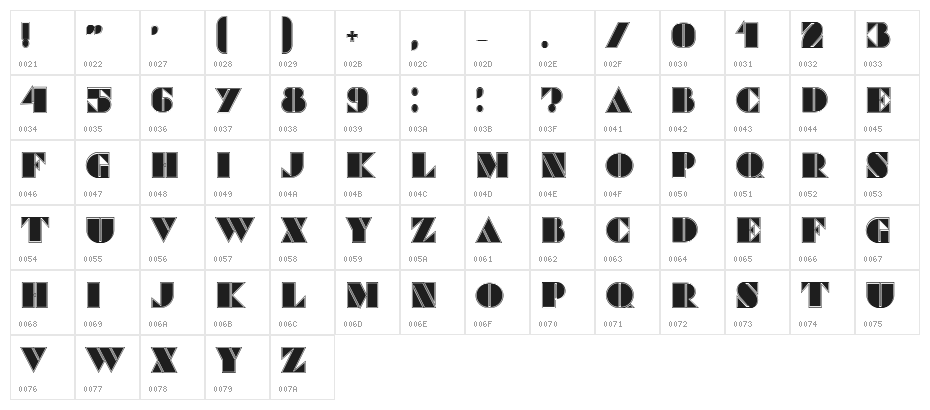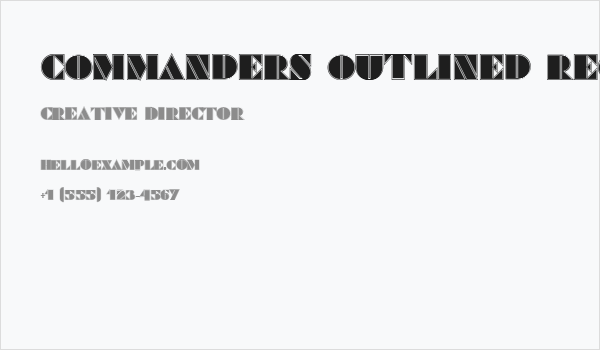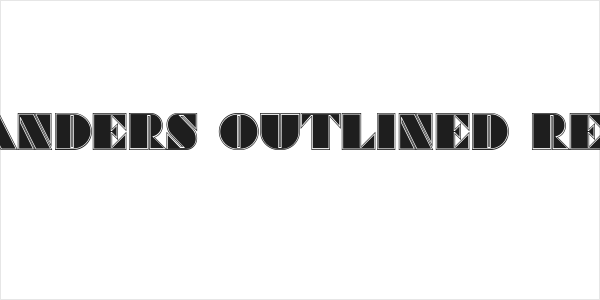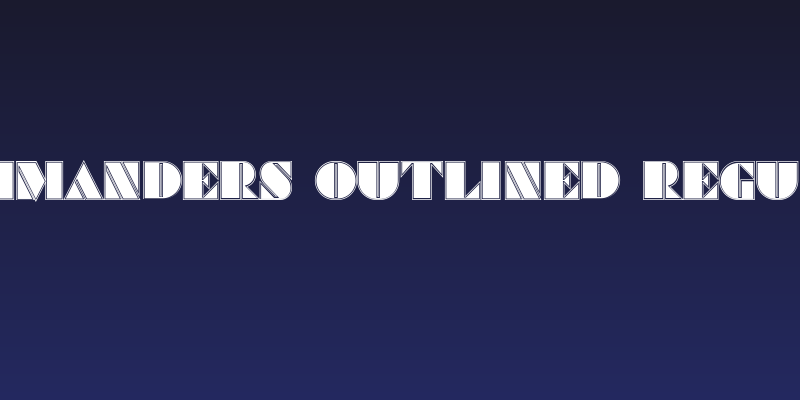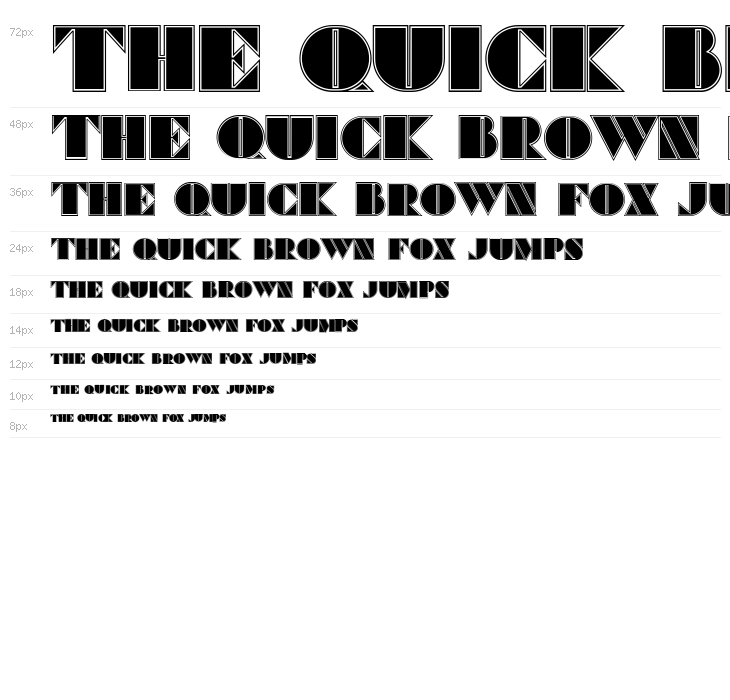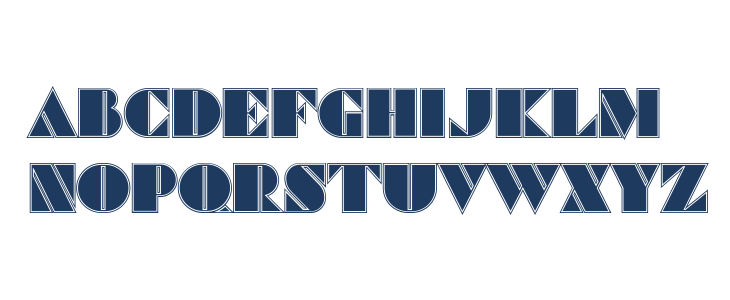
Commanders Outlined Regular Font
Commanders Outlined Regular Description
This font features a bold and striking design with an outlined style that gives it a unique, dimensional appearance. Each character is crafted with a thick outline and a filled interior, creating a strong visual impact. The geometric shapes and sharp angles add a modern and edgy feel, making it stand out in any design. The uppercase and lowercase letters maintain a consistent style, while the numbers and special characters complement the overall aesthetic. This font is perfect for projects that require a bold statement and a contemporary look.
| Proposed Projects | Ideal for posters, logos, headlines, and branding materials that need a bold and modern touch. |